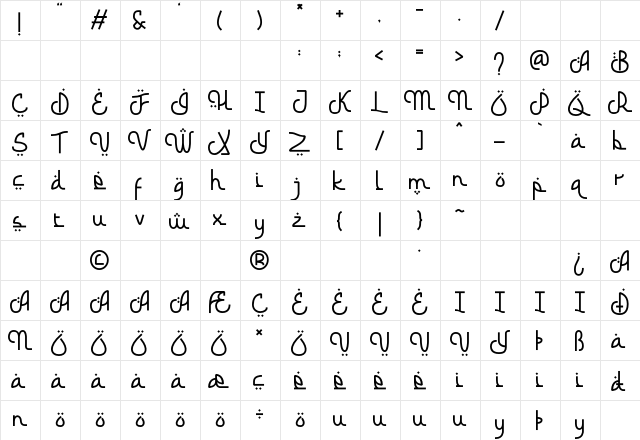
Barokah Ramadhan [Demo] Regular
| Foundry | Gartype Studio |
| Designer | Gumilang Anggara Ruslan |
Design Context for Barokah Ramadhan [Demo] Typeface
Barokah Ramadhan [Demo] is a composed and adaptable typeface that performs quietly and consistently across a wide range of design contexts.